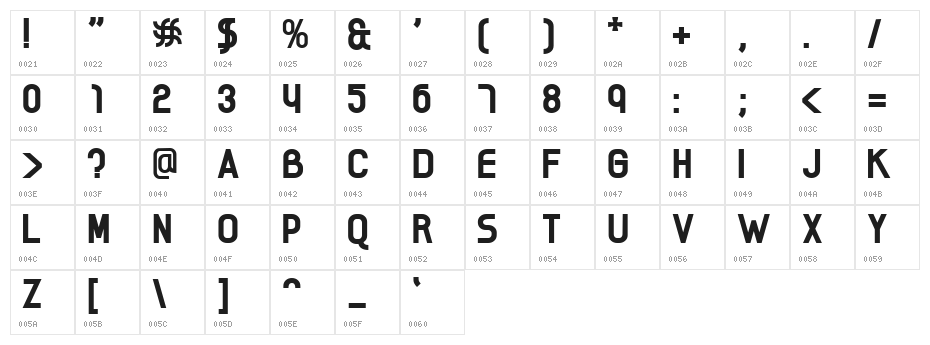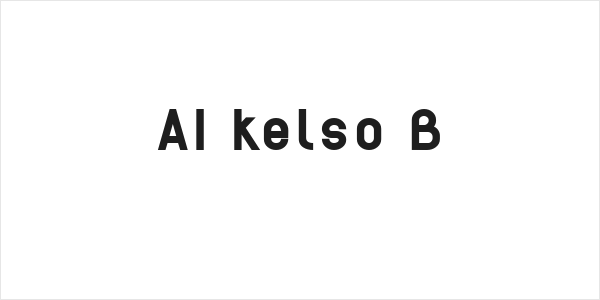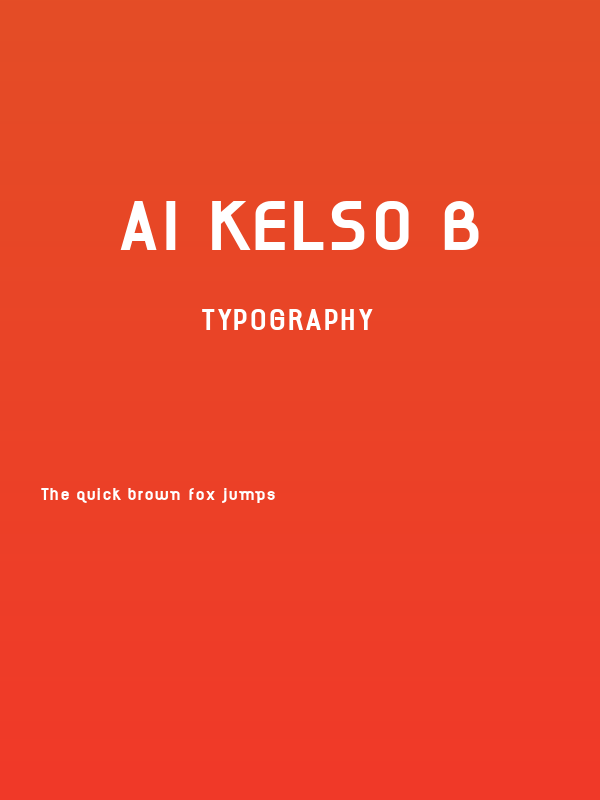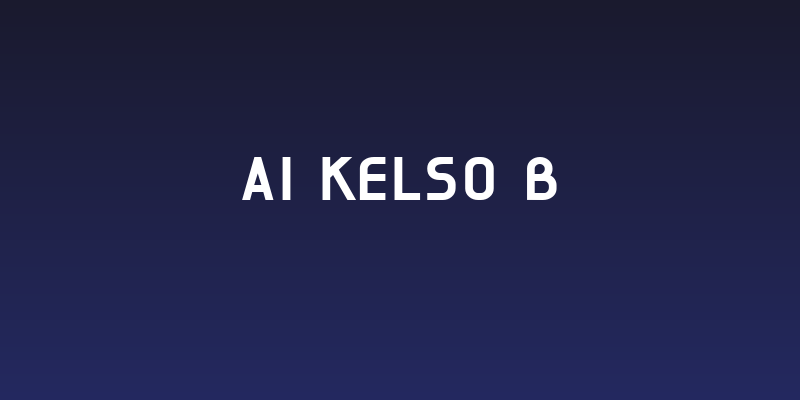
AI kelso B Font
AI kelso B Description
This font features a bold and modern sans-serif design with clean, geometric lines. The uppercase letters are uniform in height, providing a strong and consistent appearance. The lowercase letters maintain a similar geometric style, with rounded edges that add a touch of softness to the overall look. The numerals are clear and easy to read, making them suitable for various applications. Special characters are well-defined, ensuring versatility in design projects. The font's bold weight and modern style make it ideal for attention-grabbing headlines and impactful graphic design.